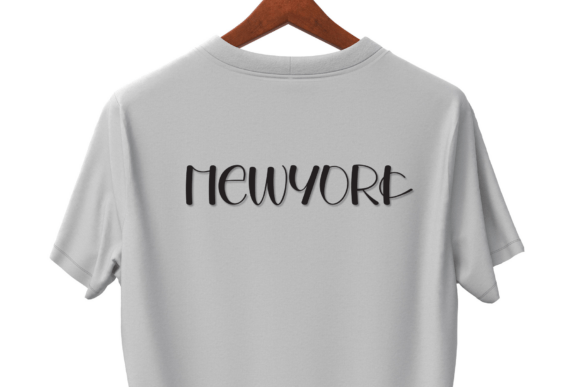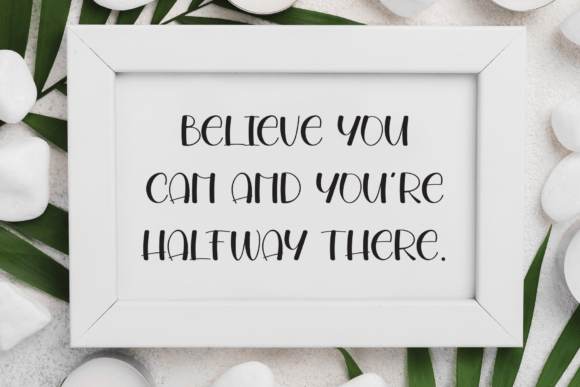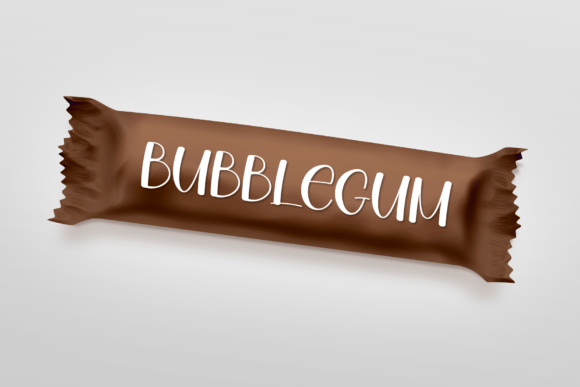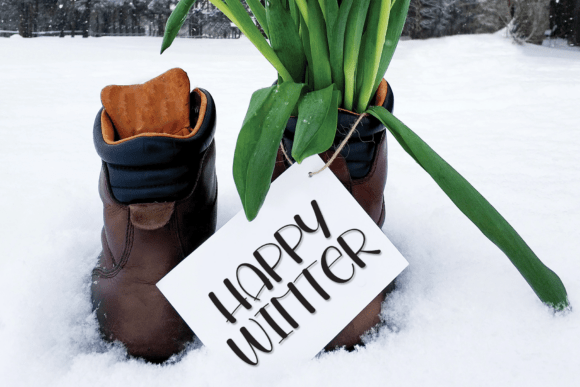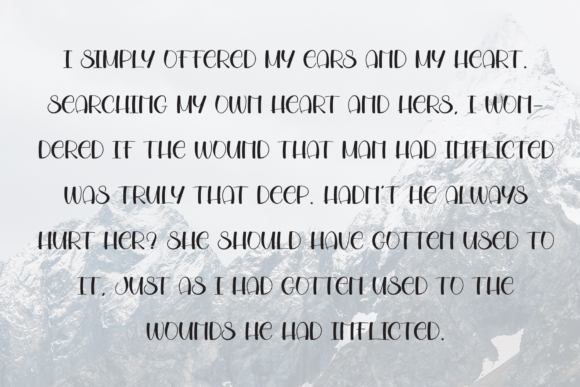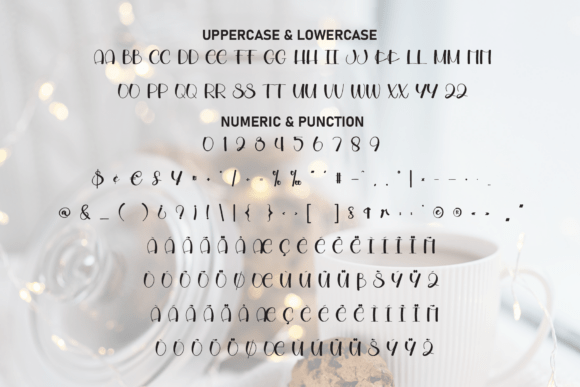
Introduction to Morning Christmas Font Font
Fonts play a crucial role in design, and the Morning Christmas Font font is a typeface that brings both character and versatility to any project. Whether you’re working on a branding project, a website, or a print design, the Morning Christmas Font font offers a unique style that can elevate your work.
Morning Christmas is a casual display font that blends modern simplicity with a playful, approachable vibe.
Featuring clean shapes, soft edges, and well-balanced letterforms, it captures the charm of relaxed design while maintaining clarity and style Ideal for posters, branding, packaging, and social media graphics, it adds a fresh and friendly touch to any project.
The Morning Christmas Font font is more than just a typeface – it’s a design tool that helps you communicate your message with style and clarity. Its unique character set and versatile design make it suitable for a wide range of applications, from elegant invitations to bold headlines.
With its carefully crafted letterforms and balanced proportions, the Morning Christmas Font font ensures readability and visual appeal across all mediums.
The Morning Christmas Font font stands out with its unique design, exceptional readability, and versatility across various design applications.